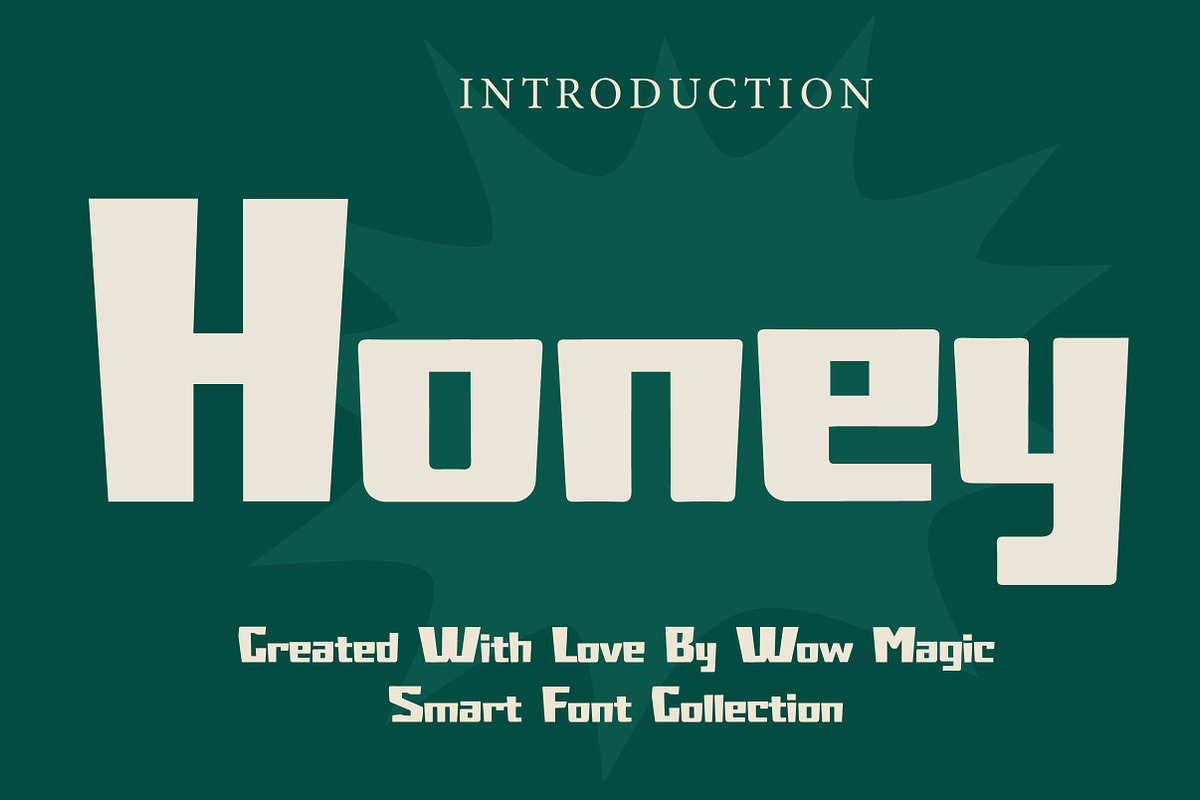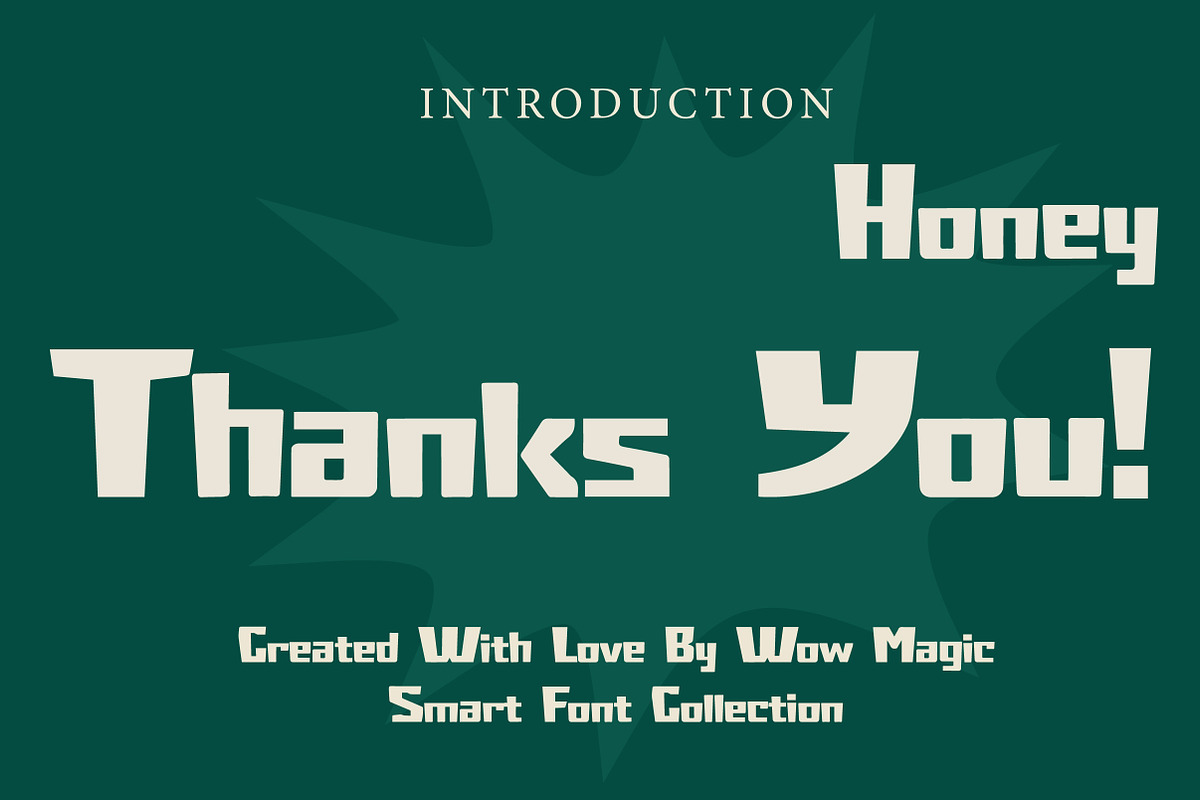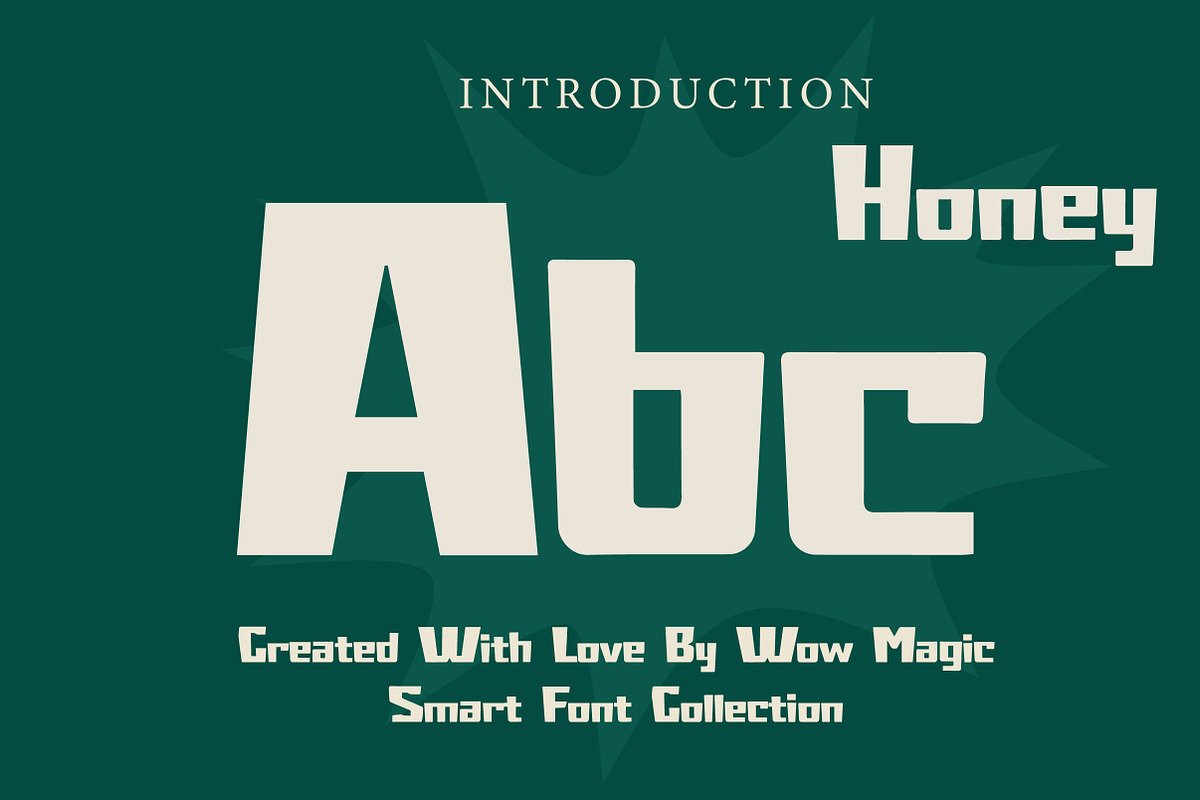
Honey
Honey is a bold and playful display font designed with thick geometric shapes and a strong modern personality. Its blocky letterforms, smooth edges, and slightly quirky proportions create a fun yet powerful visual presence that instantly stands out.
The chunky structure gives the font a sweet and friendly vibe while maintaining a confident and impactful look. Honey is perfect for branding, logos, posters, packaging, kids projects, social media graphics, product labels, and bold headline designs that need a playful and modern touch.
With its simple geometric construction and eye-catching weight, Honey works beautifully in both digital and print designs. It’s a great choice for designers who want typography that feels fun, strong, and memorable.
Branding Projects
Posters & Flyers
Kids Branding
Bold Headlines